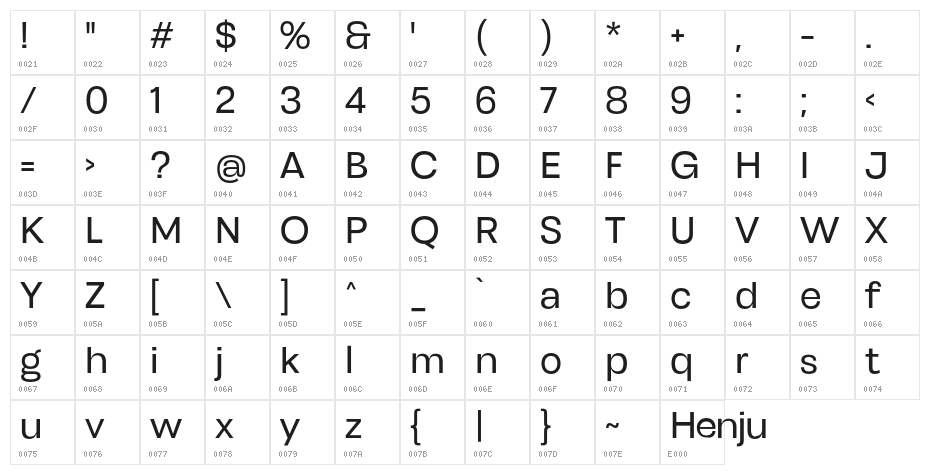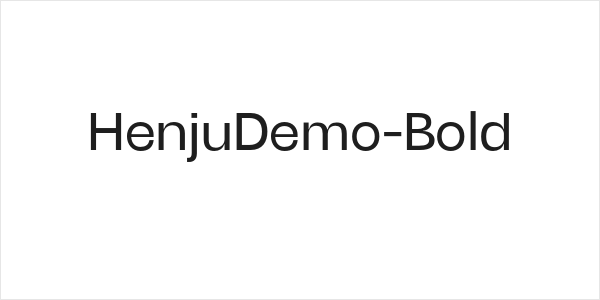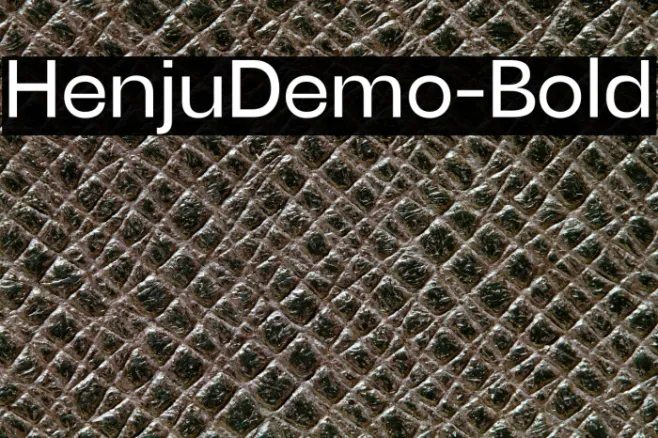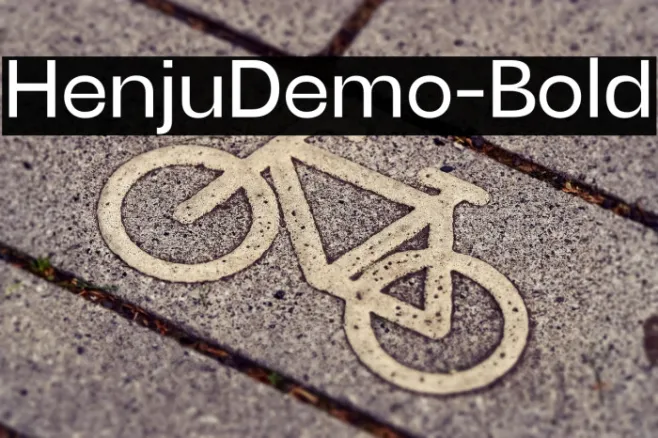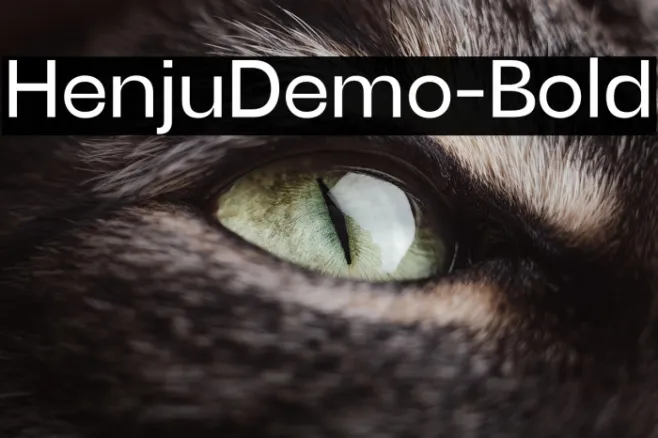
HenjuDemo-Bold Font
HenjuDemo-Bold Description
This font exhibits a clean and modern sans-serif style, characterized by its bold weight and uniform stroke width. The characters are well-balanced with a geometric influence, offering a contemporary and professional appearance. The uppercase letters are slightly taller than the lowercase, maintaining a consistent alignment. The numerals are clear and legible, making them suitable for various applications. Special characters are distinct and harmonize well with the overall design, ensuring versatility in usage.
| Use Case | Headlines, Logos, Digital interfaces |
| Proposed Projects | Ideal for branding, advertising, digital interfaces, and editorial design projects. |